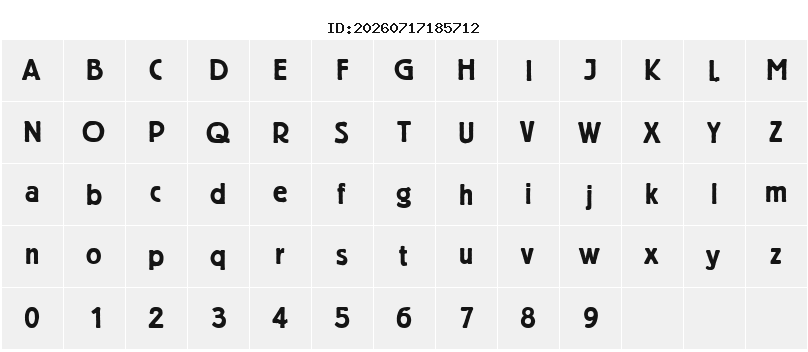
BerlinerGroDDemBol Preview
About BerlinerGroDDemBol.ttf
BerlinerGroDDemBol.ttf is a modern, elegant sans-serif font designed for ultimate readability and visual harmony. Perfect for branding, headlines, web design, and print materials.